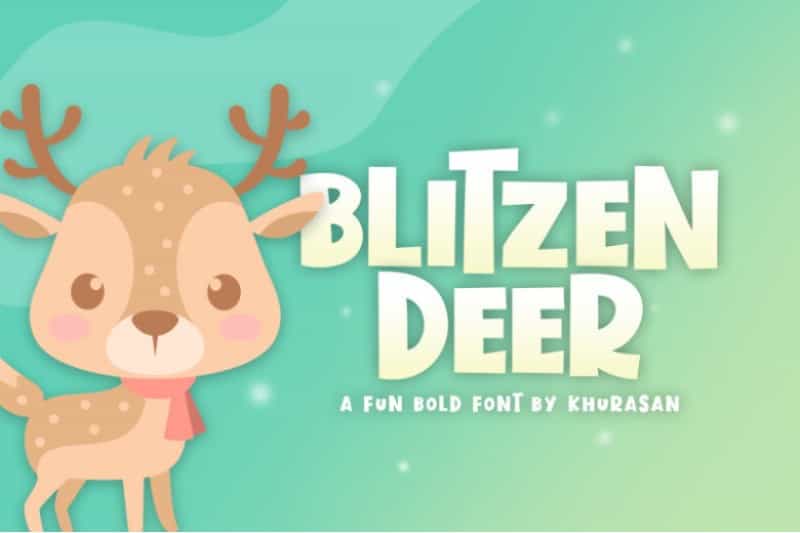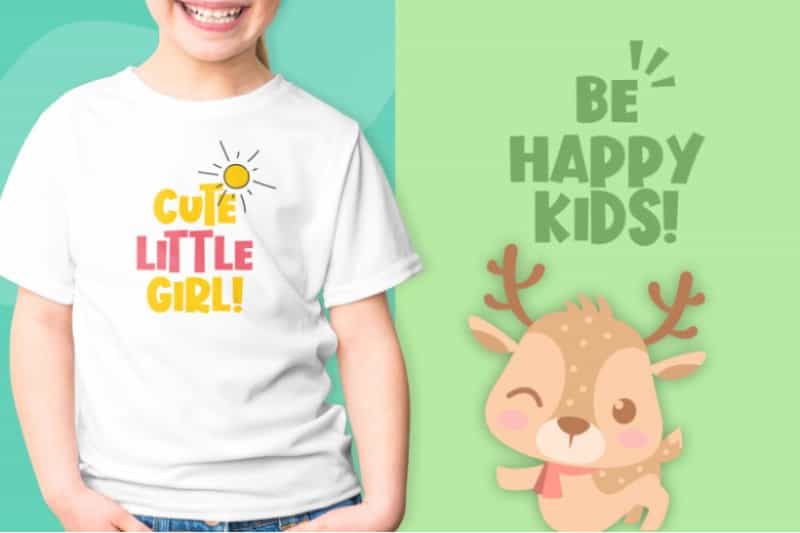
Blitzen Deer is a playful font for display purpose; it has a contemporary look. Blitzen Deer Font is a logo design, branding, greeting card, poster, and any design that you make.